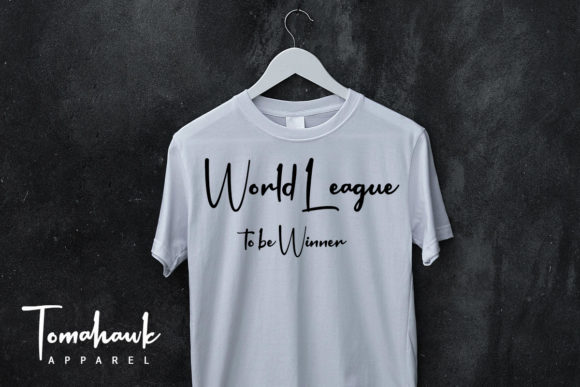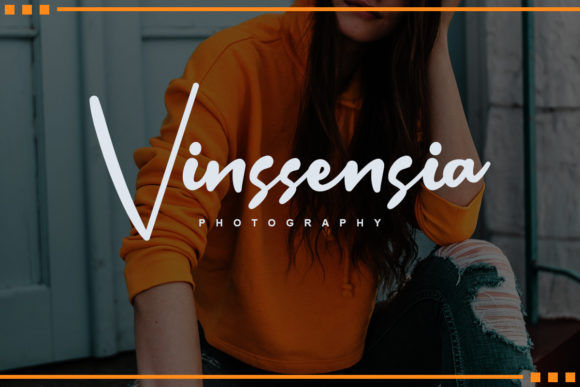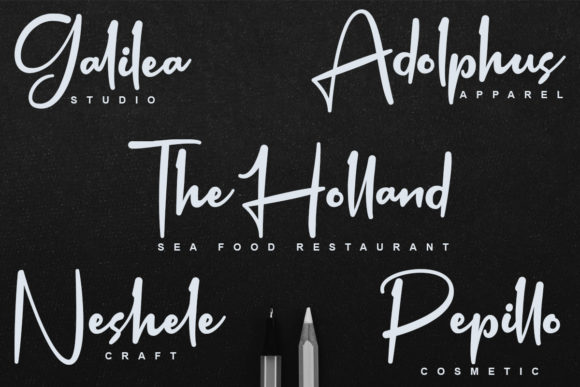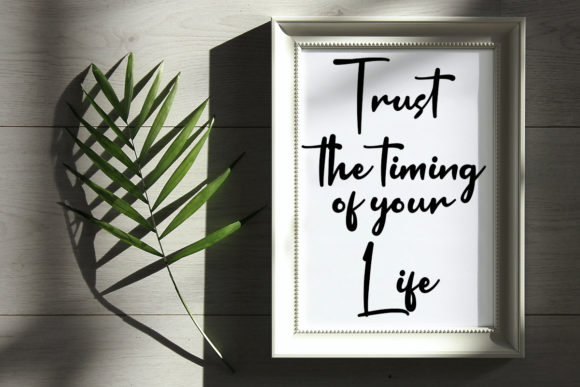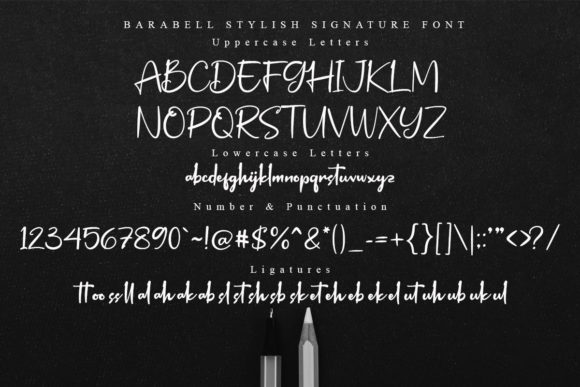
The Perfect Script: Discovering the Timeless Charm of Barabell Font
Have you ever found yourself staring at a blank sheet of paper, trying to conjure up the perfect idea for a project? The cursor blinks, taunting you with its emptiness, until suddenly, a spark of creativity strikes. This is exactly what happened to designers when they discovered the Barabell Font – a stylish and timeless handwritten font that brings elegance and sophistication to any design.
Barabell Font is more than just a pretty face; it’s a versatile tool that can be used to create stunning wedding invitations, beautiful stationery art, eye-catching social media posts, and so much more. Its unique, handwritten style lends itself perfectly to a wide range of design projects, making it a valuable addition to any designer’s toolkit.
Whether you’re a seasoned pro or just starting out, Barabell Font is an essential resource that will help you take your designs to the next level. Its timeless charm and versatility make it a must-have for anyone looking to add a touch of personality to their work.
Barabell Font Key Features
- Font Family: Barabell is a script font family, designed to mimic handwritten text.
- Unique Characteristics: Features a flowing, cursive script with a mix of elegant and playful flourishes, making it suitable for creative and artistic applications.
- Font Style: Available in Regular and Bold weights, with optional ligatures and swashes for added flair.
Barabell Font Review
Overall, I was quite impressed with the Barabell font. It has a unique blend of elegance and whimsy that makes it perfect for various design applications. ✨ The font’s curves are smooth, and the letterforms are well-proportioned, making it easy to read even at small font sizes.
Here are some of the things that work well with the Barabell font:
- ✨ The font’s versatility: it can be used for both body text and headings, making it a great choice for a wide range of design projects.
- ✨ The font’s high legibility: the clear lines and curves make it easy to read, even at small font sizes.
- ✨ The font’s unique character: it has a distinctive look that sets it apart from other fonts in its category.
However, there are some limitations to the Barabell font that are worth noting:
- ⚠️ The font may not be suitable for formal or professional applications, as its whimsical nature may be seen as unprofessional.
- ⚠️ The font may not be as effective for display titles or headlines, as its curves can make it difficult to read at large font sizes.
Overall, I would recommend the Barabell font for design projects that require a unique and elegant look. It’s a great choice for projects that need a touch of whimsy and personality.
Use the Barabell font for elegant and sophisticated designs. Pair it with bold colors and geometric shapes for a striking visual effect. Experiment with different font sizes and styles to add depth and interest to your design.
The Barabell font is ideal for wedding invitations, business cards, and other formal documents. It’s also suitable for packaging design, logos, and branding materials. Use it to create a sense of luxury and sophistication in your designs.